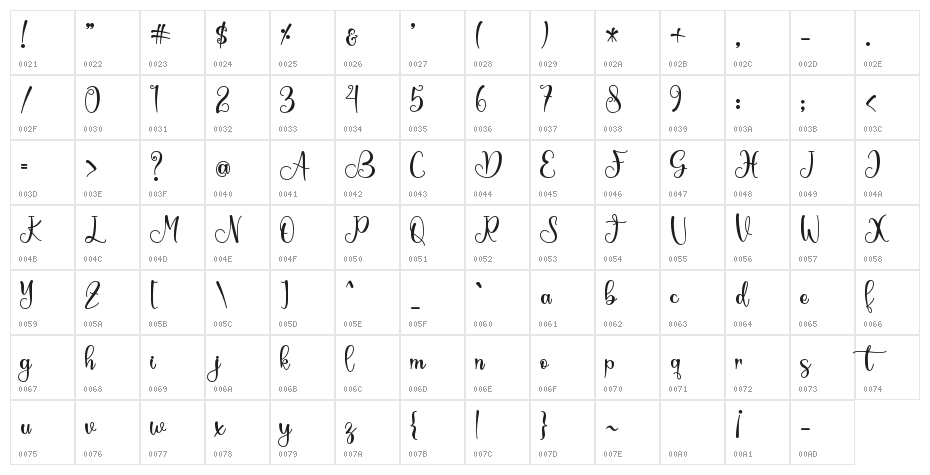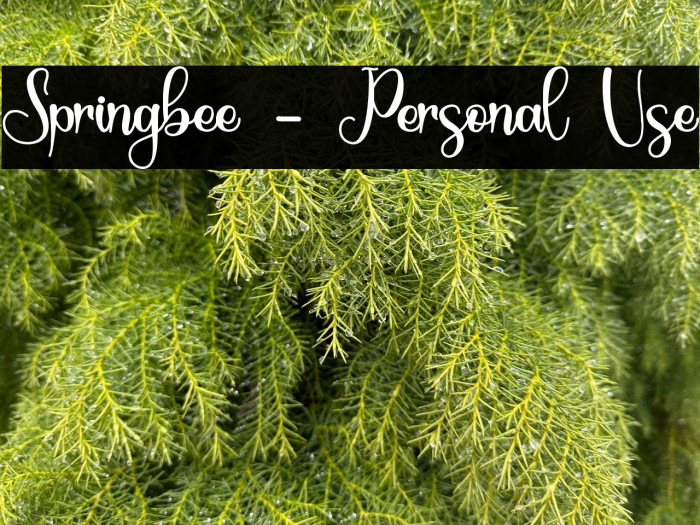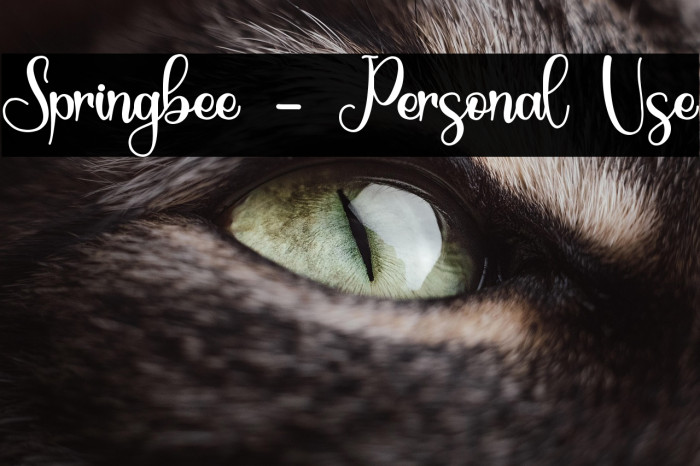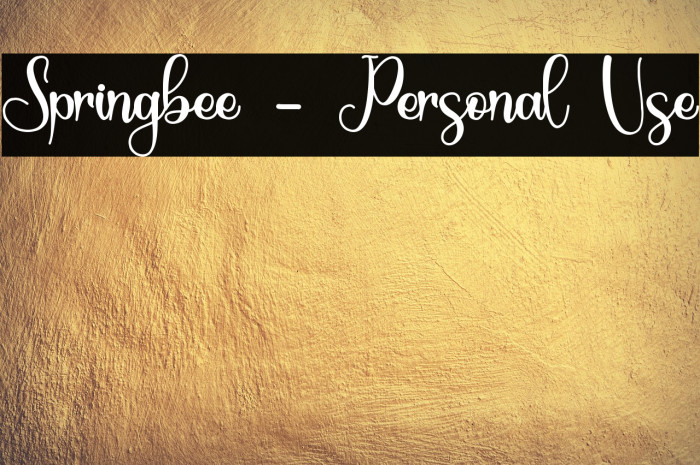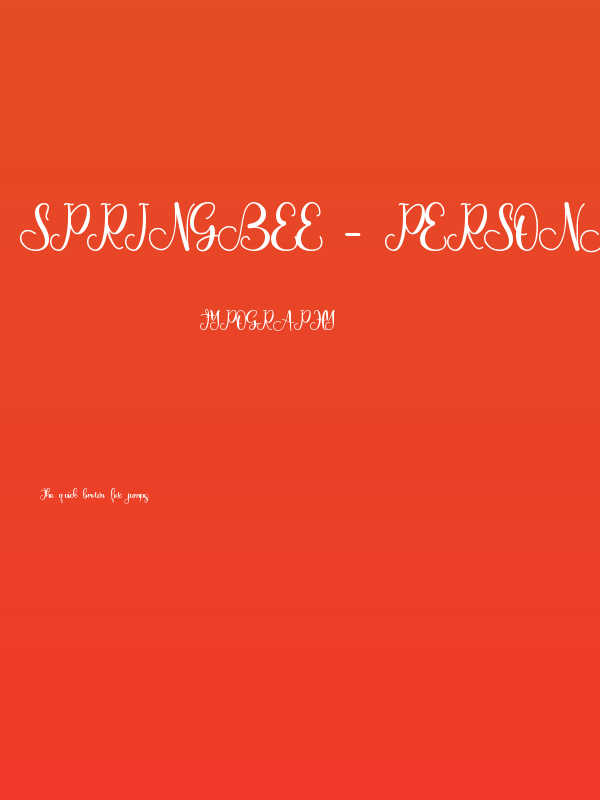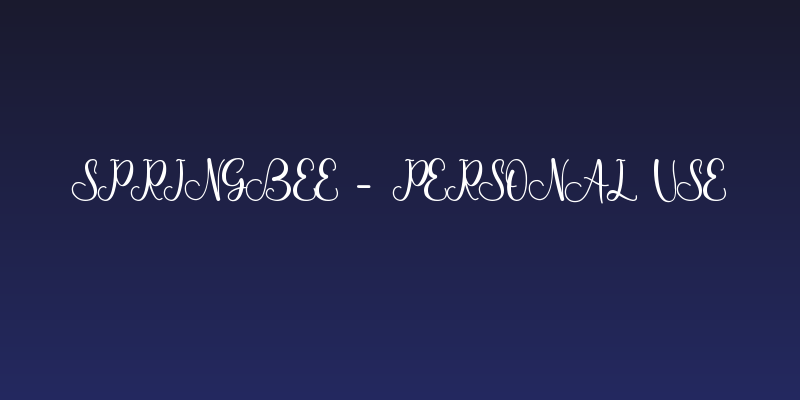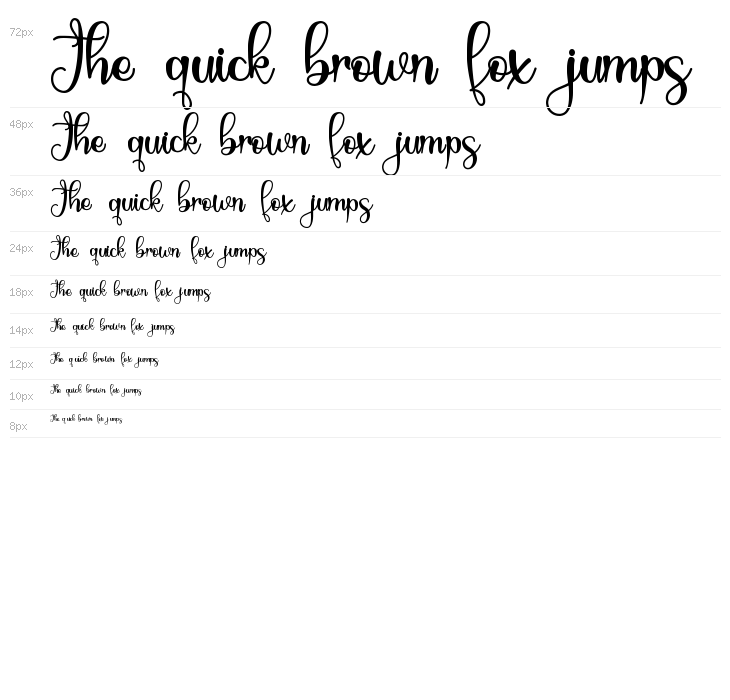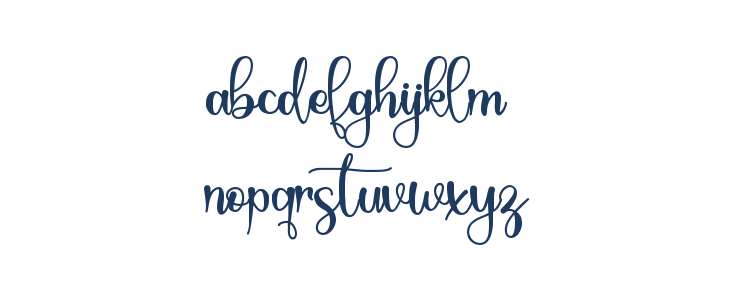
Springbee - Personal Use Font
Springbee - Personal Use Description
This font features an elegant and flowing script style, characterized by its smooth, cursive lines and decorative swirls. The uppercase letters are particularly ornate, with each character displaying unique flourishes that add a touch of sophistication. The lowercase letters maintain a consistent flow, complementing the uppercase with a slightly more restrained design. Numbers and special characters are crafted with the same attention to detail, ensuring a cohesive look across all text. This font's artistic flair makes it ideal for projects that require a personal and stylish touch.
| Use Case | Logos, Invitations, Decorative text |
| Proposed Projects | Ideal for wedding invitations, greeting cards, branding, and logo design. |